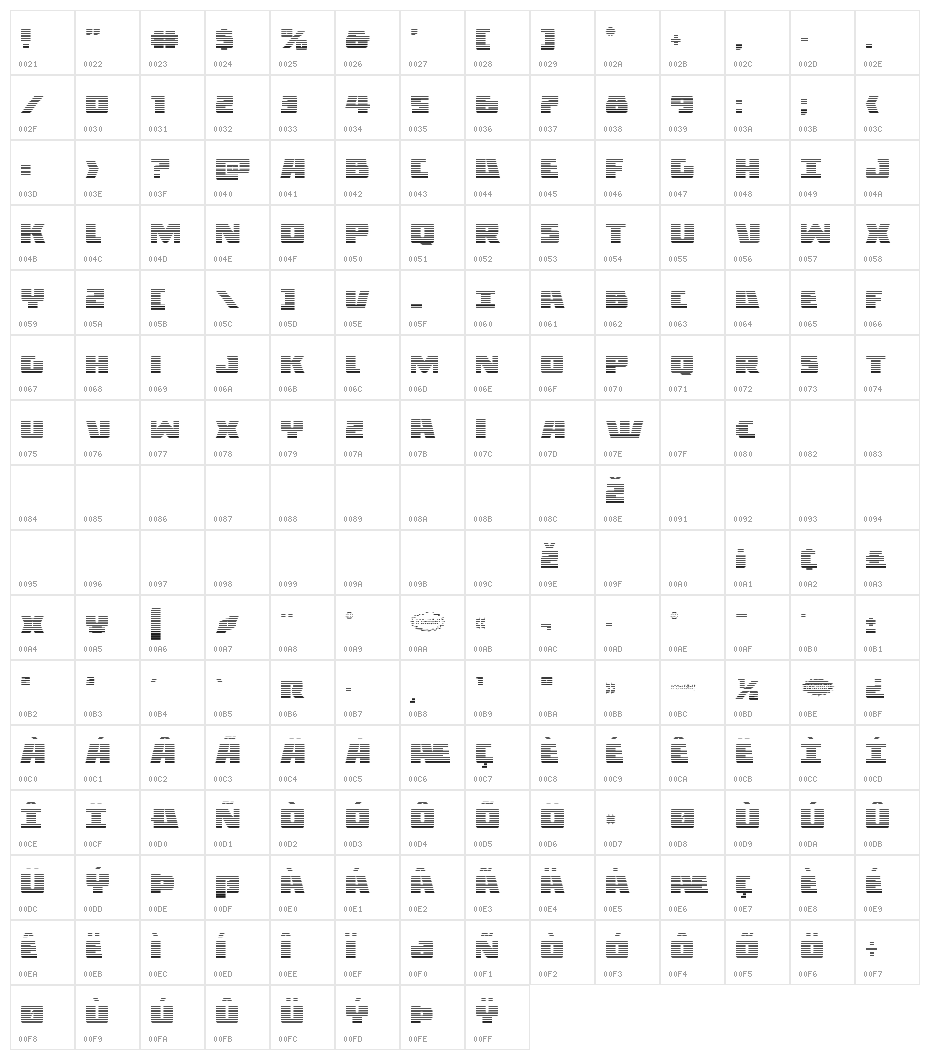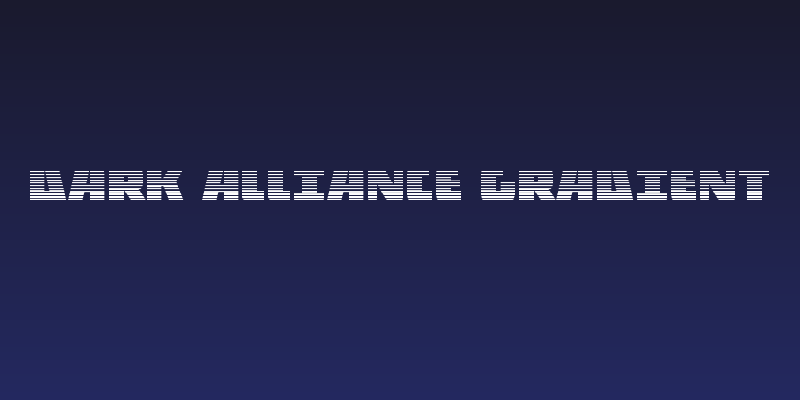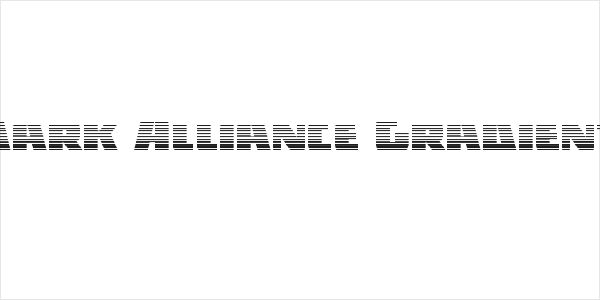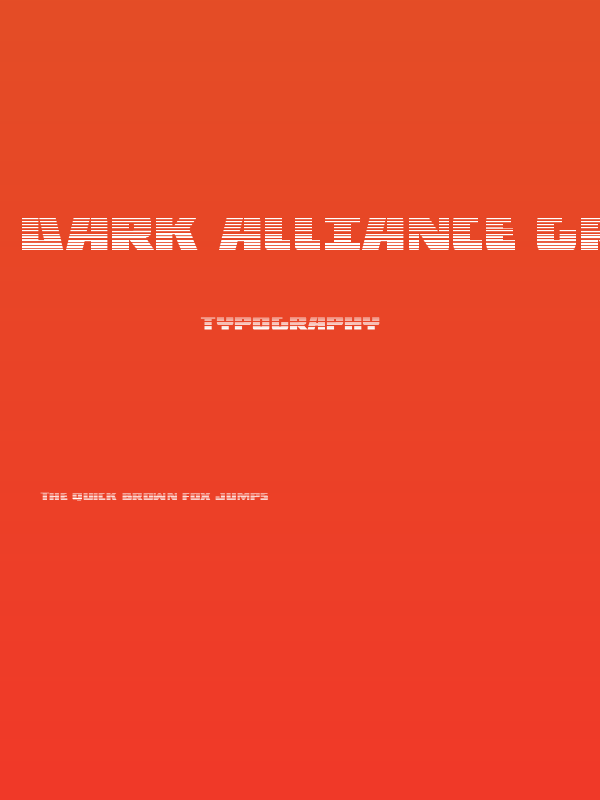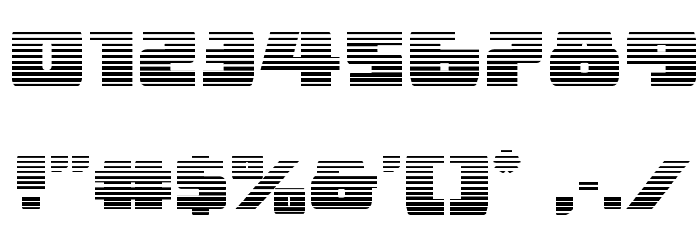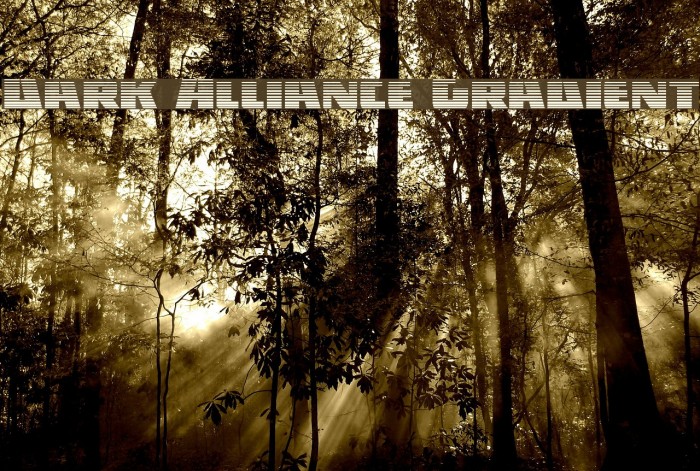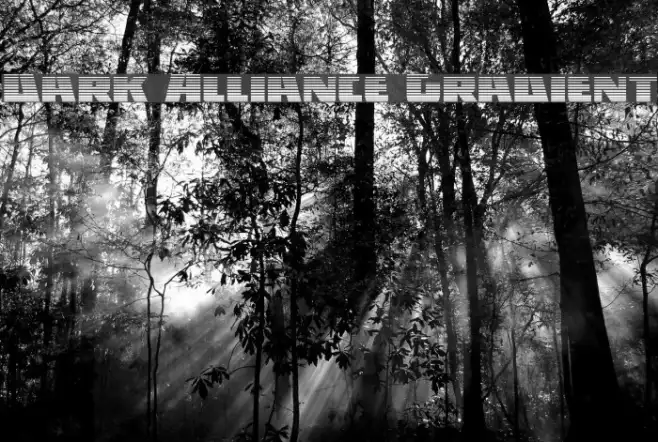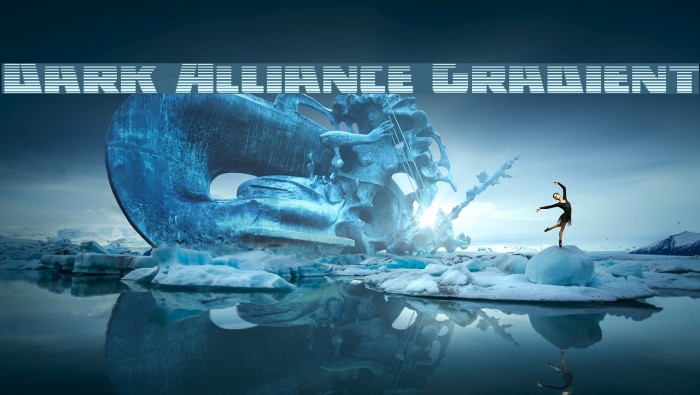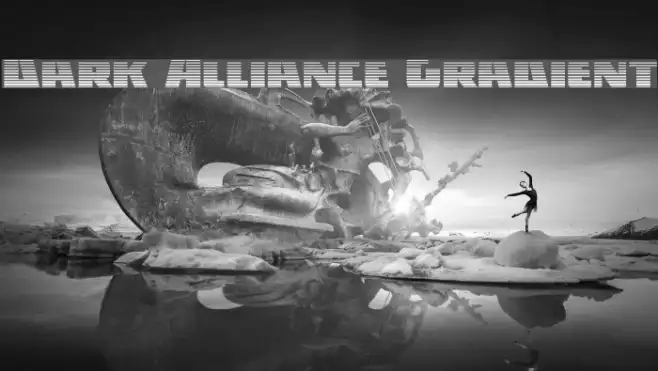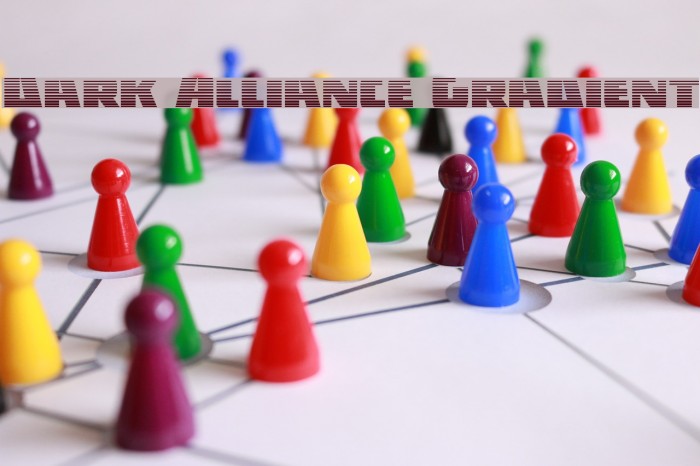
Dark Alliance Gradient Font
Dark Alliance Gradient Description
This font features a bold, futuristic design with a distinct horizontal line pattern running through each character, creating a gradient effect. The uppercase letters are blocky and geometric, with sharp angles and a strong presence. The numerals and special characters follow the same stylistic approach, ensuring consistency across all glyphs. The unique line pattern gives the font a sense of movement and modernity, making it stand out in any design. The spacing between characters is tight, enhancing the compact and cohesive look of the text.
| Proposed Projects | Ideal for sci-fi themed projects, video game titles, tech branding, and futuristic posters. |